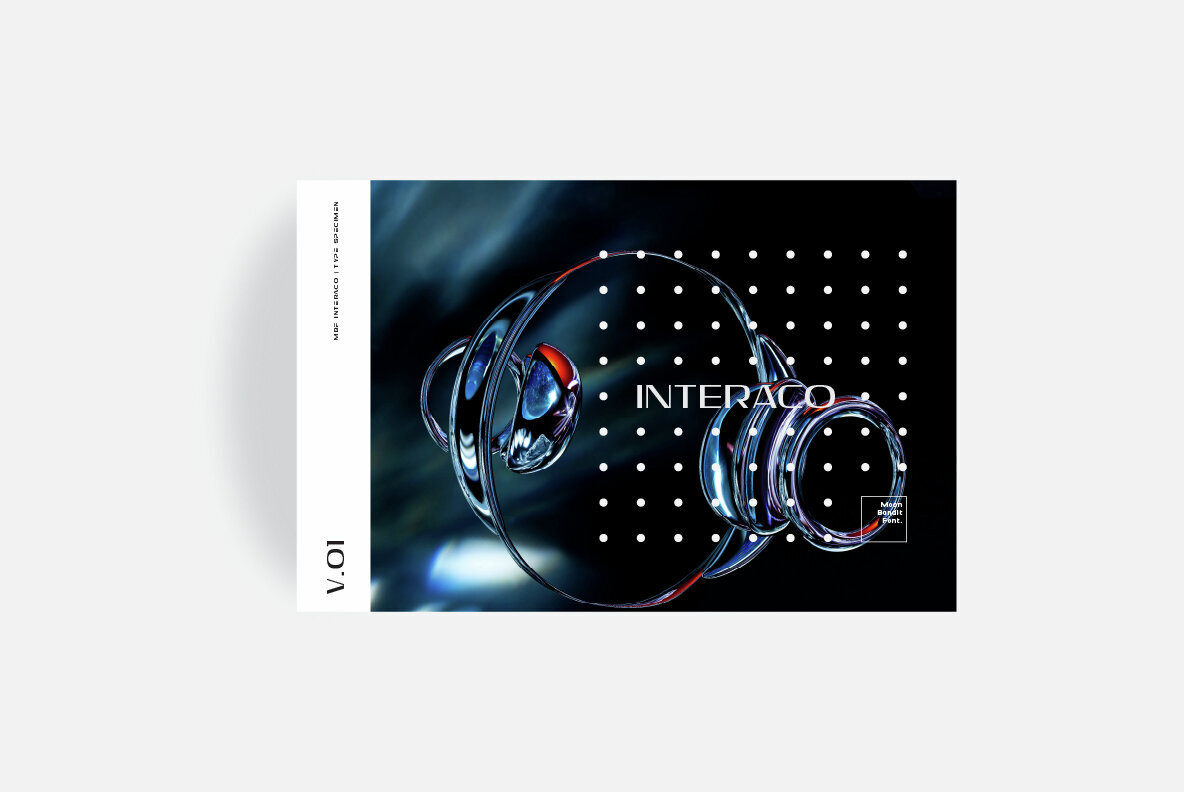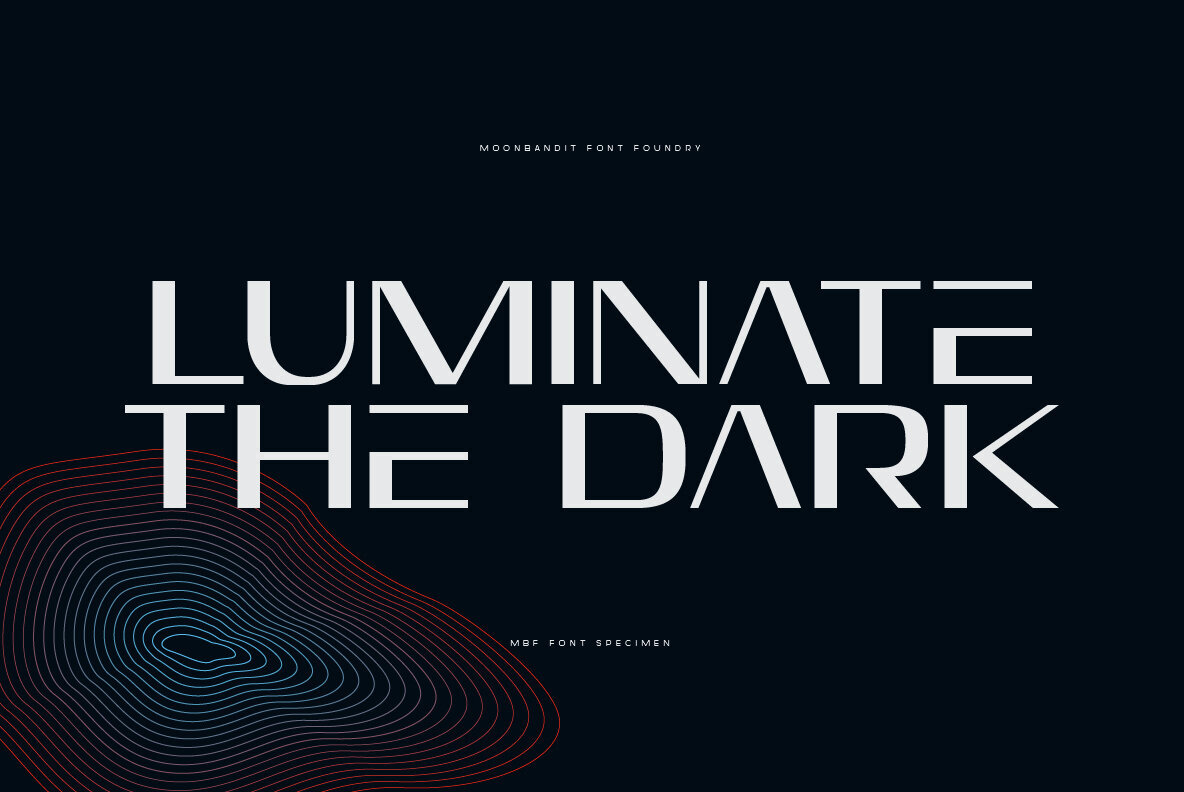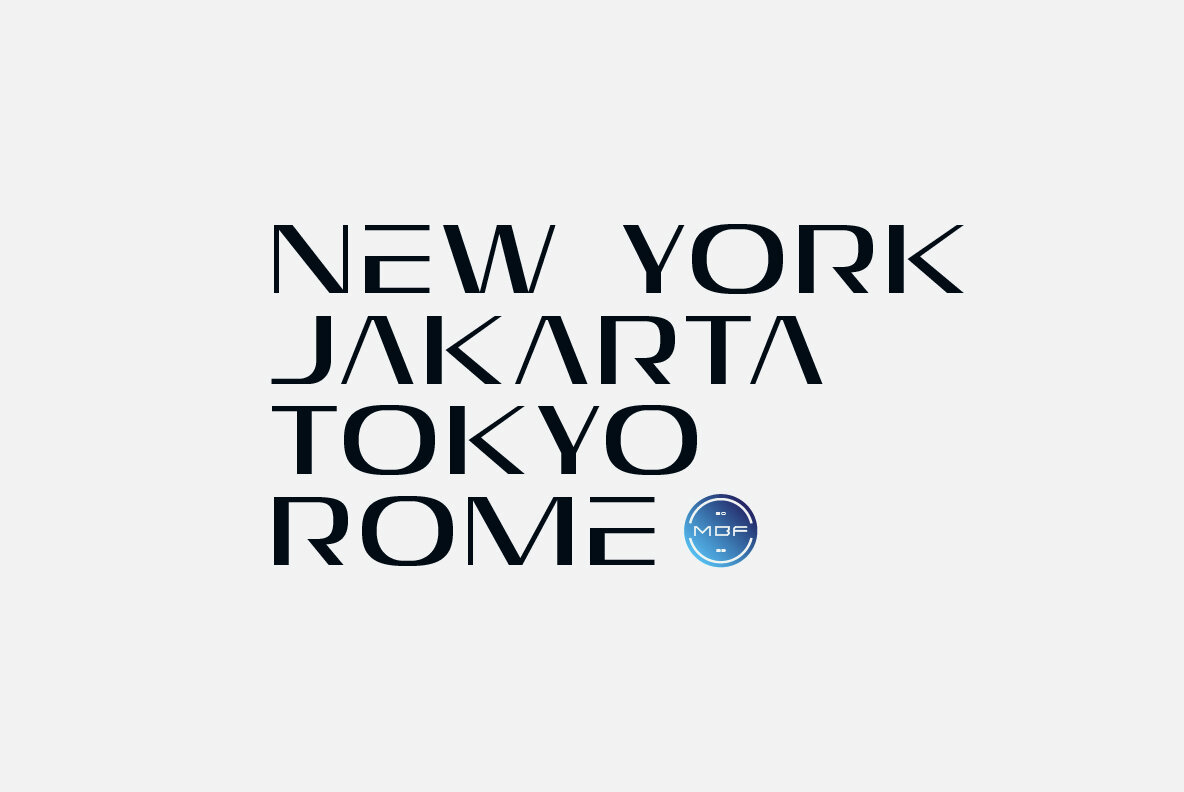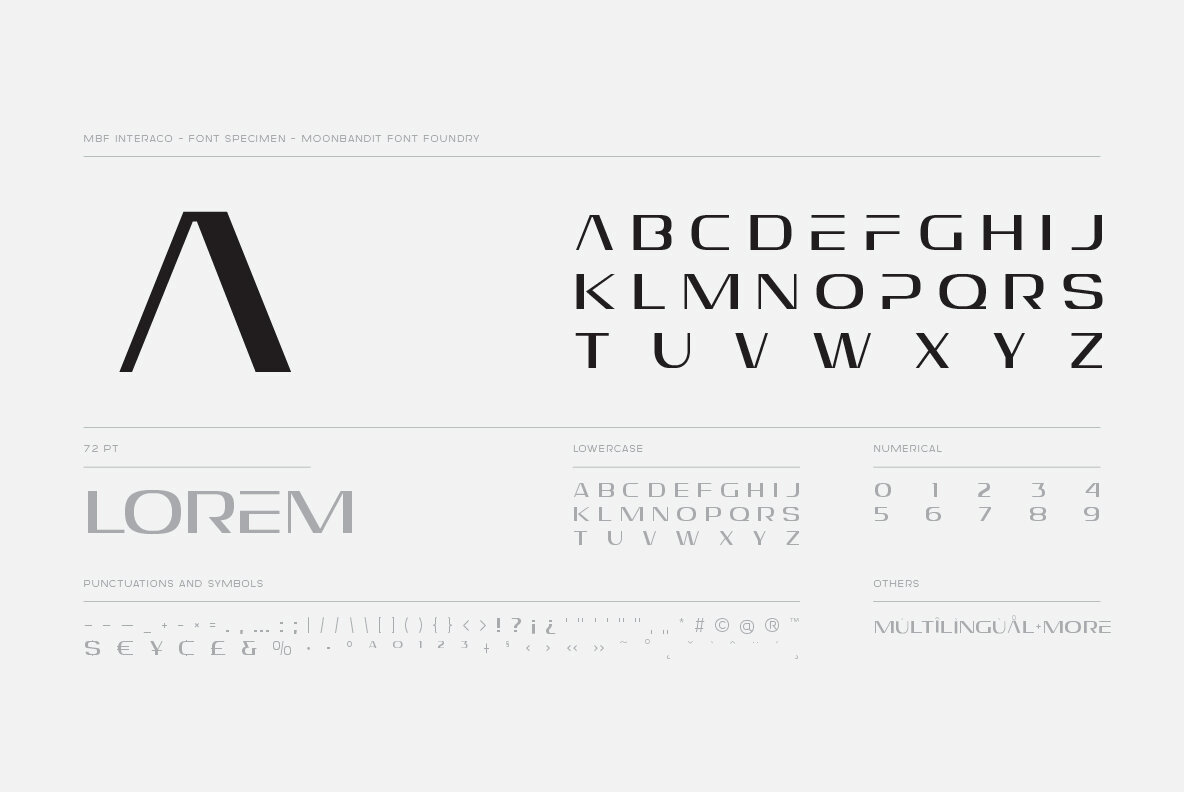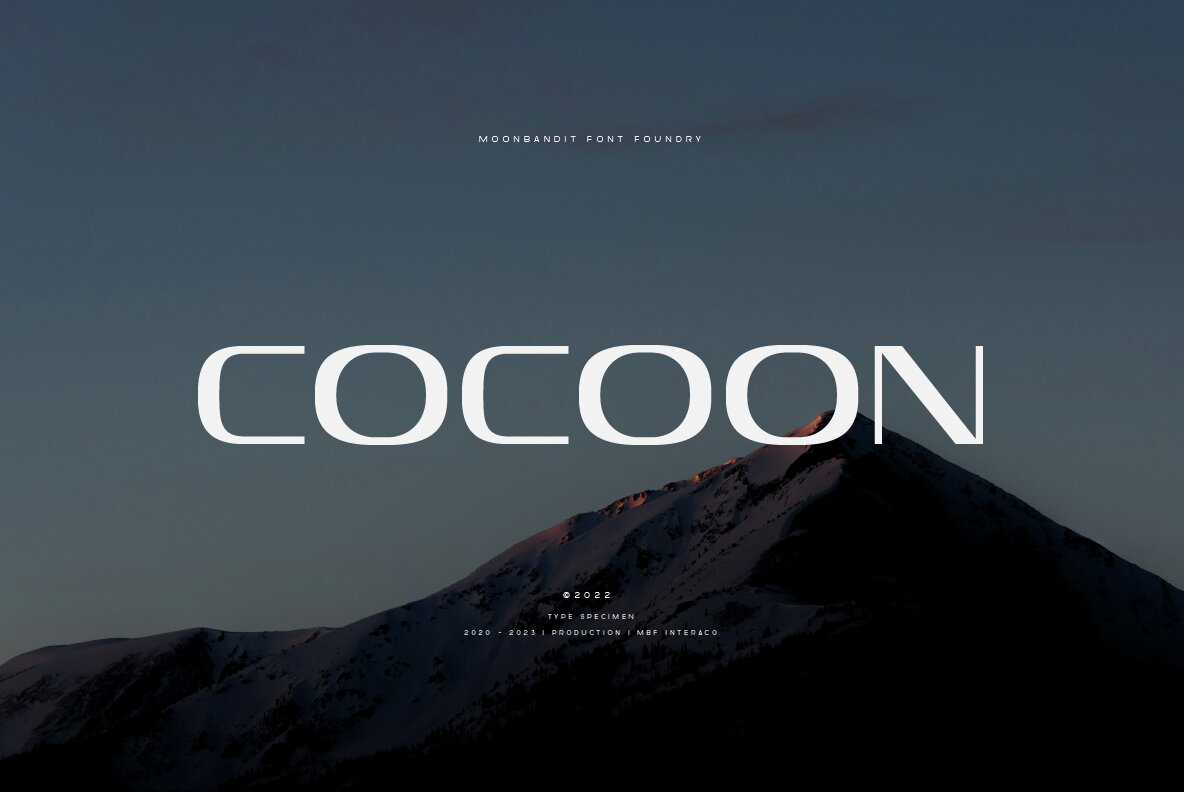
MBF Interaco
Introducing MBF Interaco, a powerful all caps modern display typeface that packs a punch with its bold and commanding presence. Interaco is the epitome of contemporary sophistication and versatility. With its sharp lines and precise geometry, MBF Interaco is purpose-built to stand out in any design project. From striking headlines and impactful titles to dynamic posters and branding materials, this typeface brings a sense of strength and character to every composition. The clean and well-defined letterforms of MBF Interaco ensure maximum legibility even at smaller sizes, making it an excellent choice for digital interfaces and print materials alike. Its carefully crafted kerning and spacing guarantee a visually pleasing and harmonious text flow, allowing your message to shine through effortlessly.